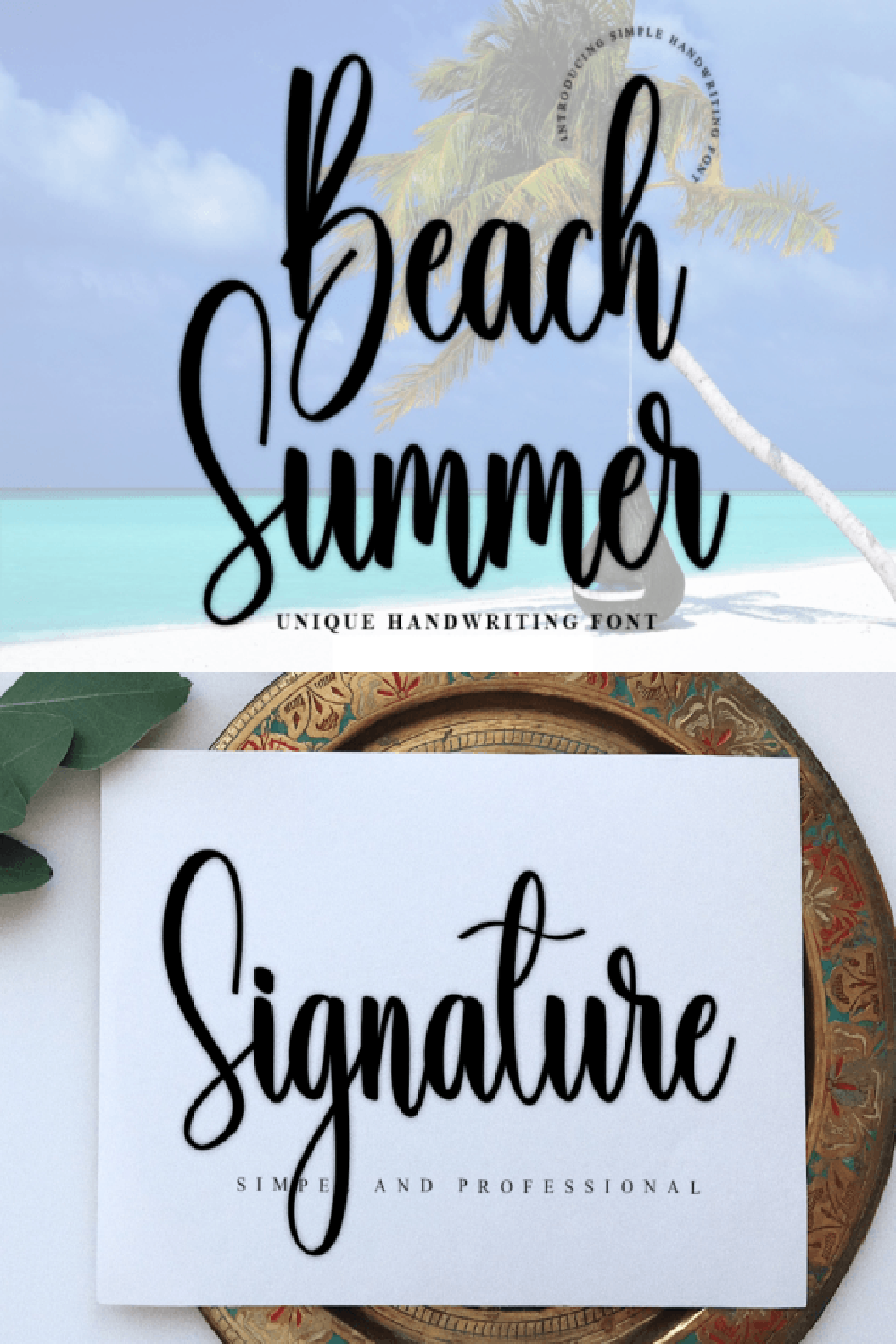
About the Beach Summer Font
Presenting Beach Summer Font, a unique and stylish typeface that will make your work stand out. Beach Summer is a delicate handwritten font carefully crafted for a cool and unique design. This font can be used to write letters, invitations, food products, titles and more.